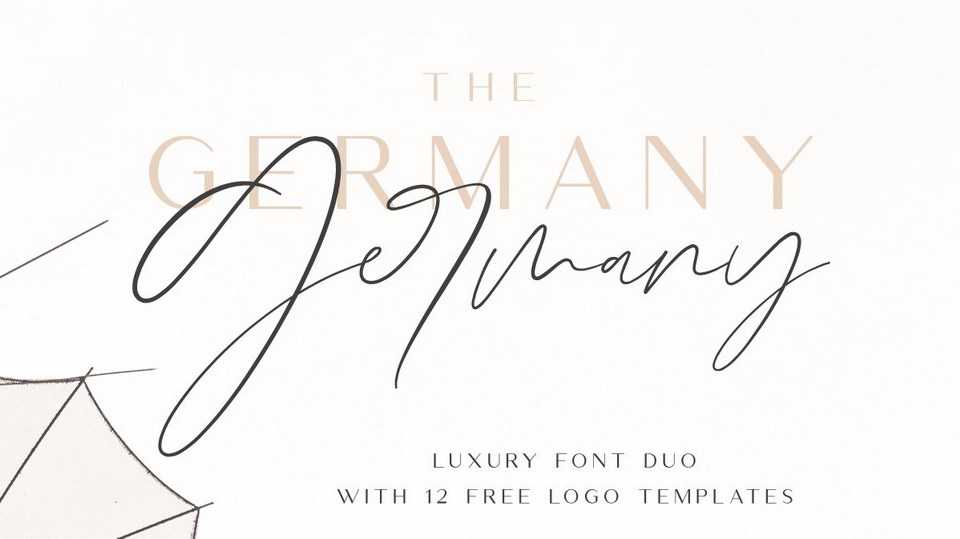
Download Germany font duo, a classy, contemporary pair of script and sans serif fonts! Germany font offers beautiful typographic harmony for a diversity of design projects, including logos & branding, wedding designs, social media posts, advertisements & product designs.